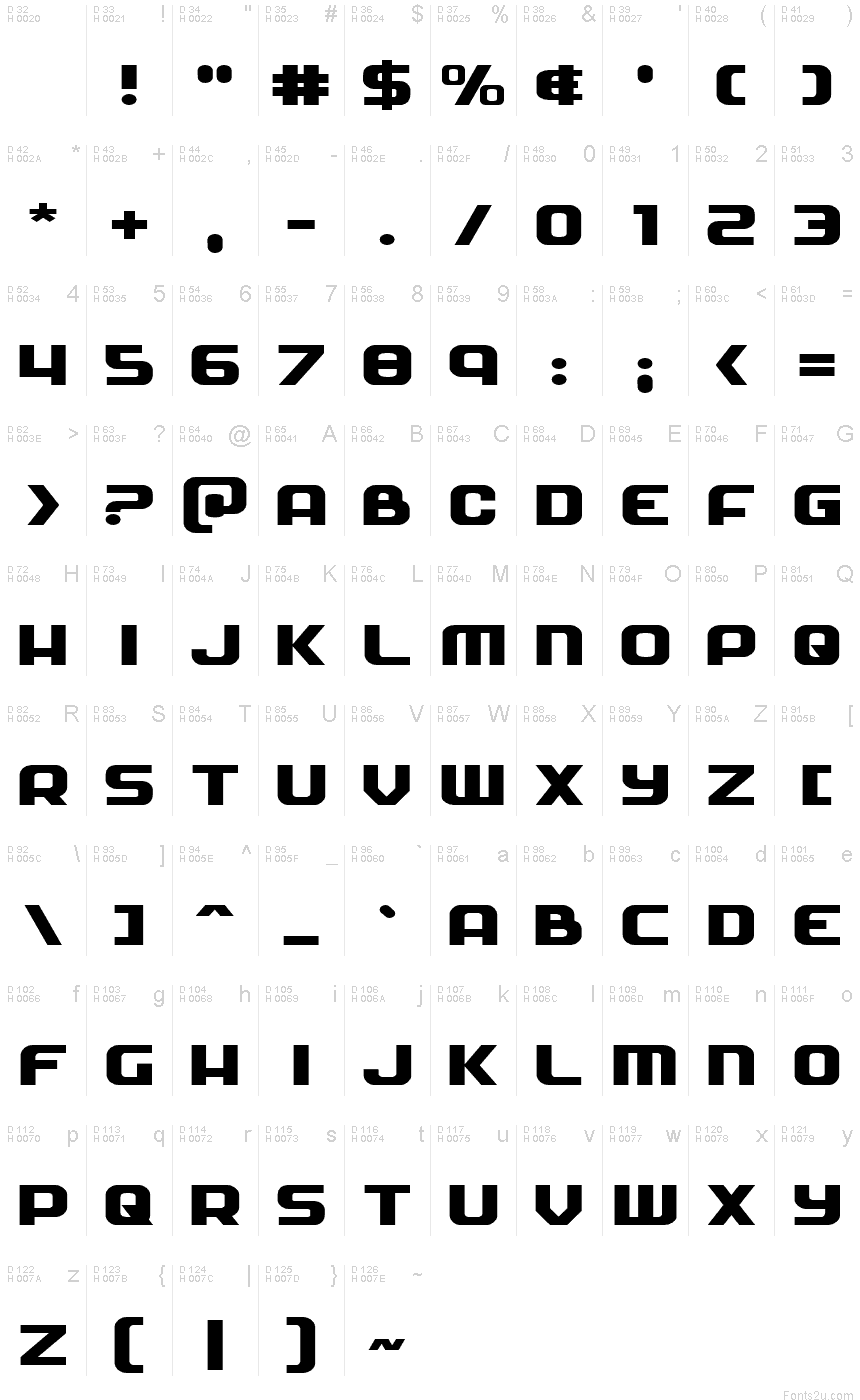
Soldier Expanded by Daniel Zadorozny of Iconian Fonts is a free extended geometric sans serif with a forceful, futuristic profile. Broad letters, near-uniform strokes, and squared curves create a low, solid silhouette. Small rectangular openings and clipped joins sharpen its machine-tooled appearance.
Posters are its most convincing setting, especially for science fiction, gaming, or motorsport events seeking assertive technical lettering with the impact of industrial signage. It also suits merchandise, album packaging, and digital graphics. In publishing, the unusually broad proportions can turn a cover line into a structural band across the page.
Soldier Expanded